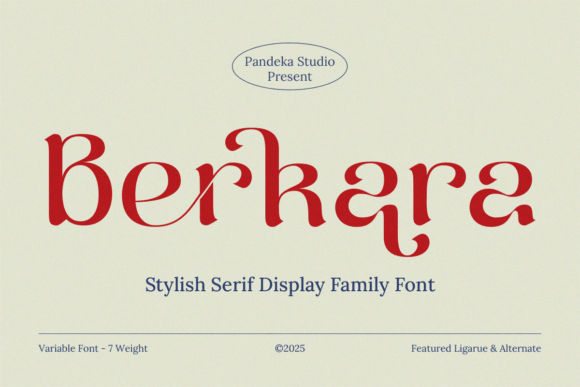
I still remember the frustration of working on a luxury branding project, searching for a font that exuded elegance and sophistication. My client wanted a typography style that would make their brand stand out, but I was struggling to find the right fit. That’s when I stumbled upon Berkara, a vintage-inspired serif font family that instantly caught my attention. In this article, I’ll share my experience with Berkara, its features, and how to make the most of this beautiful font.
First Impressions: What I Love About Berkara
Berkara has quickly become one of my go-to fonts, and here’s why:
- ✨ Versatility: With 7 styles to choose from (Thin, Extra Light, Light, Regular, Medium, Semi Bold, and Bold), Berkara offers flexibility for a wide range of creative applications.
- ✅ Elegant Design: Its refined ligatures and graceful curves make it perfect for stylish typography in luxury branding, fashion logos, editorial layouts, premium packaging, and sophisticated display design.
- 💡 Modern Twist: Berkara’s vintage inspiration is blended with a modern and elegant twist, making it suitable for both classic and contemporary designs.
The Not-So-Perfect: Small Quirks and Limitations
While Berkara is an excellent font, it’s not without its quirks:
- 🤔 Limited Use in Body Text: Due to its elegant and refined design, Berkara might not be the best choice for lengthy body text. It’s better suited for headlines, titles, and short paragraphs.
- ⚠️ Glyph Limitations: Some users have reported that Berkara’s glyph set could be more extensive. However, its existing glyphs are well-designed and versatile.
The Story Behind Berkara: Designer Inspiration
Berkara’s design story begins with a passion for vintage typography and a desire to create a modern, elegant font family. The designer aimed to craft a font that would evoke a sense of luxury and sophistication, while still being versatile and practical for a wide range of creative applications. With Berkara, the designer has successfully blended classic and contemporary elements, resulting in a truly unique and beautiful font.
| What is Berkara’s primary use case? | Berkara is designed for luxury branding, fashion logos, editorial layouts, premium packaging, and sophisticated display design. |
| Is Berkara suitable for body text? | While Berkara can be used for short paragraphs, it’s primarily designed for headlines, titles, and display text due to its elegant and refined design. |
| Is Berkara available in multiple languages? | Berkara supports multiple languages, but its glyph set might be limited. Check the font’s documentation for specific language support. |